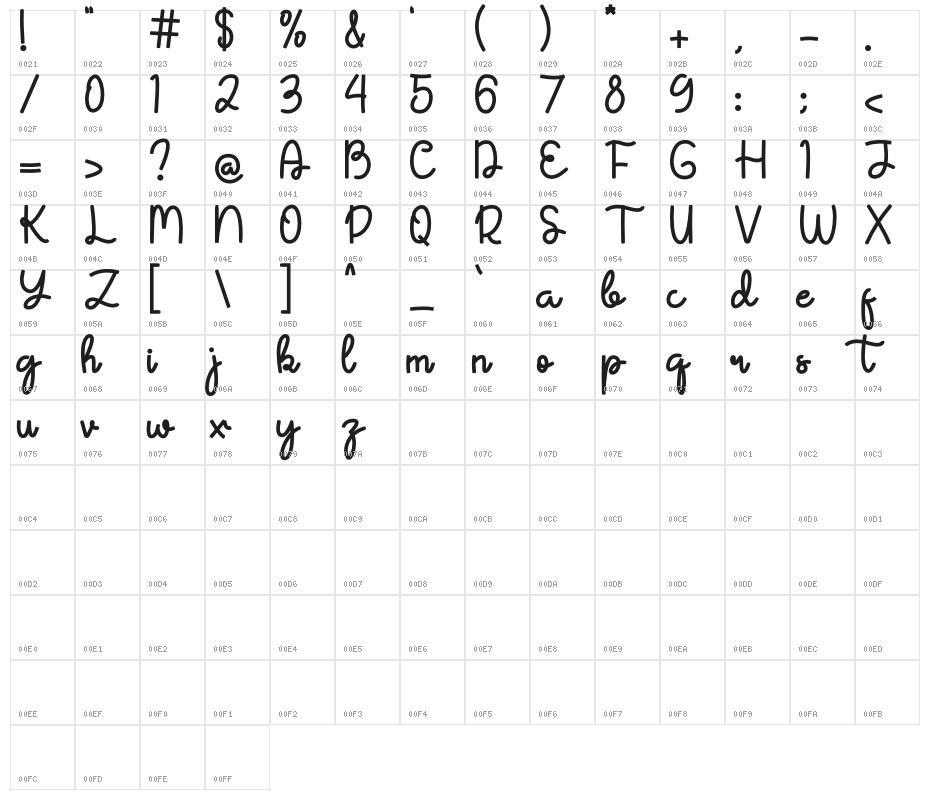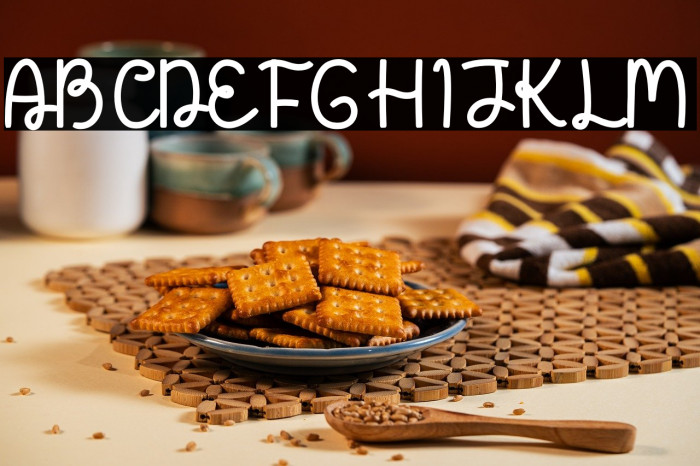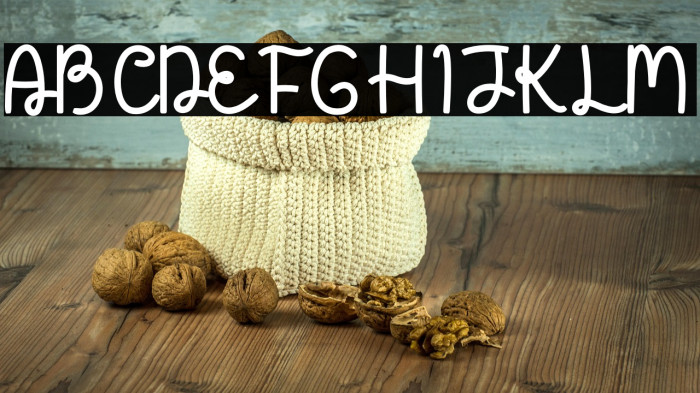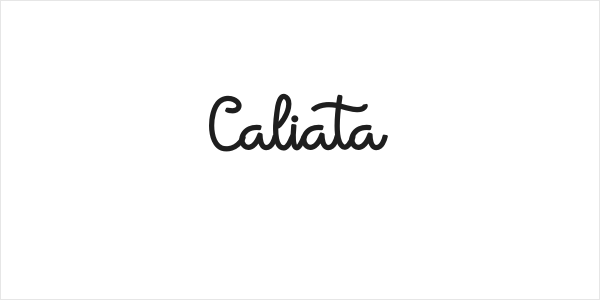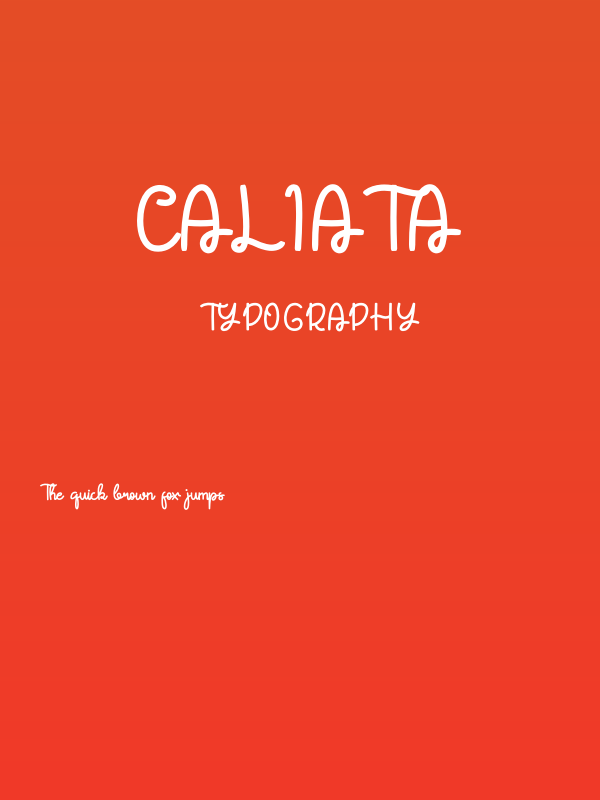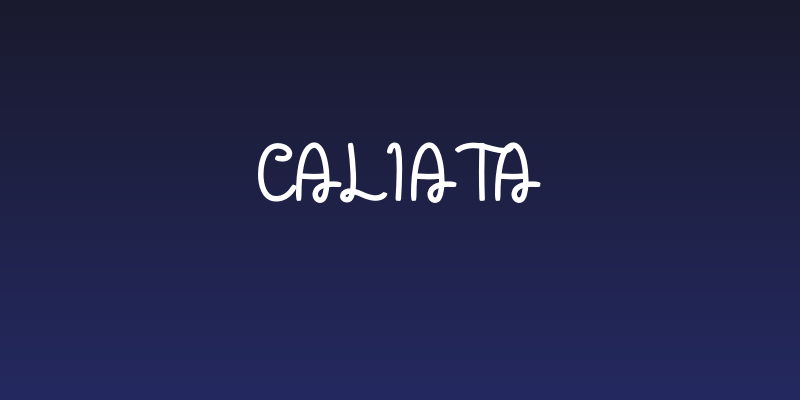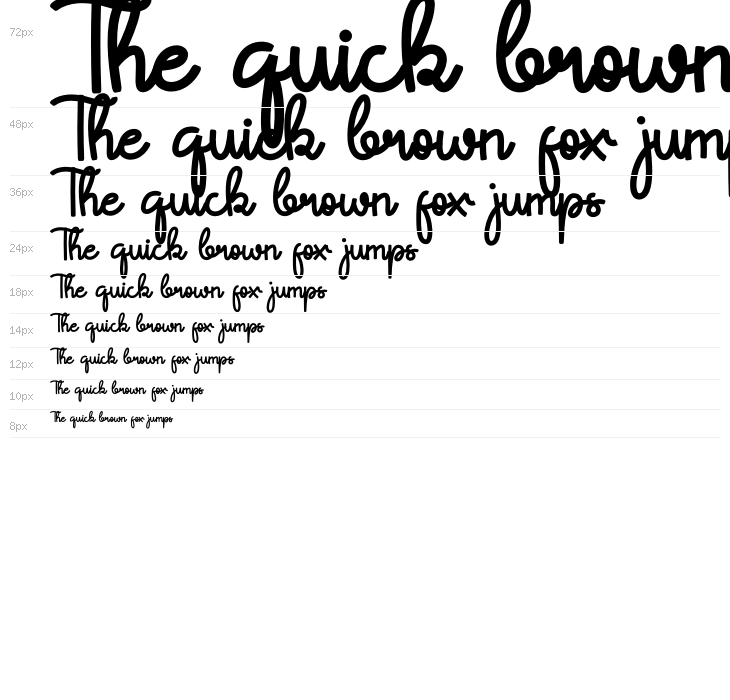
Caliata Font
Caliata Description
This playful and energetic font features a handwritten style with a casual and friendly appearance. The uppercase letters are bold and rounded, with a slight slant that adds a dynamic feel. The lowercase letters are more fluid, with loops and curves that enhance the handwritten aesthetic. Numbers and special characters maintain the same lively style, ensuring consistency throughout. The overall design is approachable and informal, making it ideal for projects that require a personal touch.